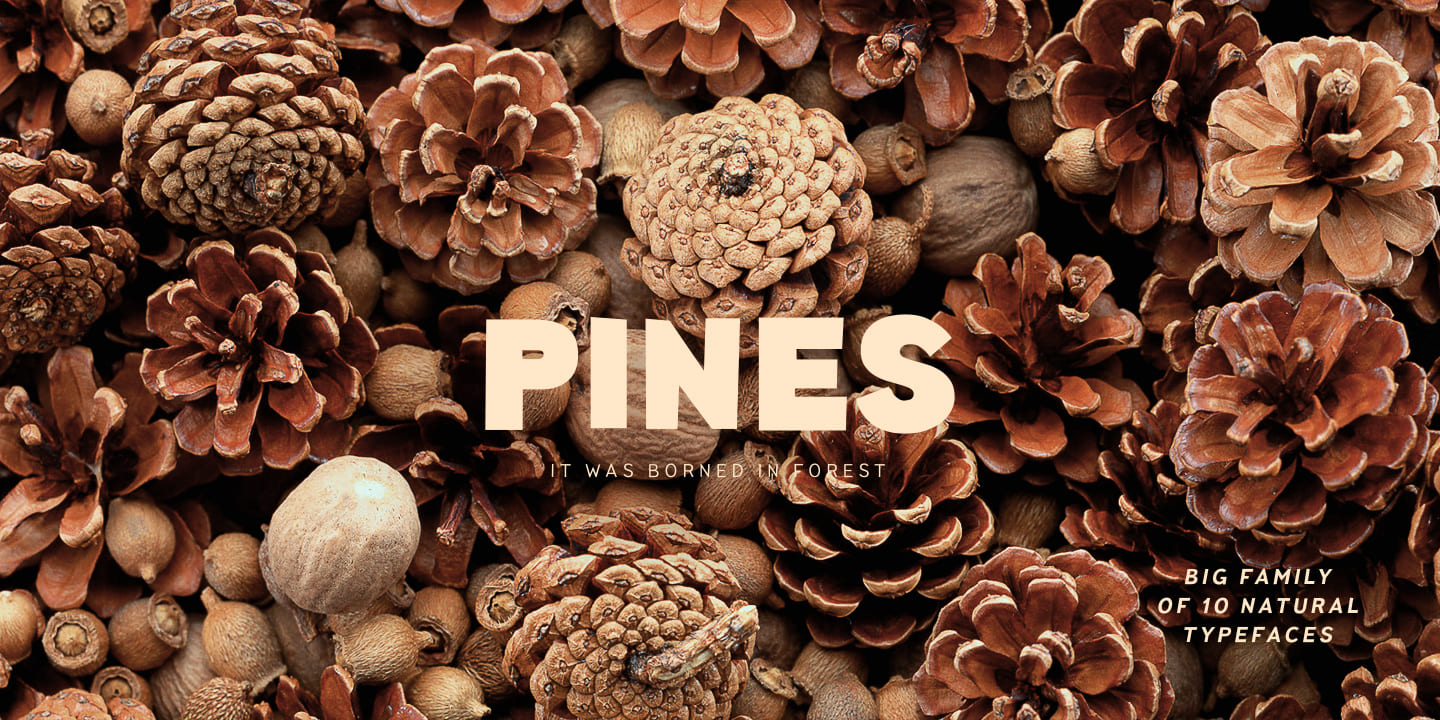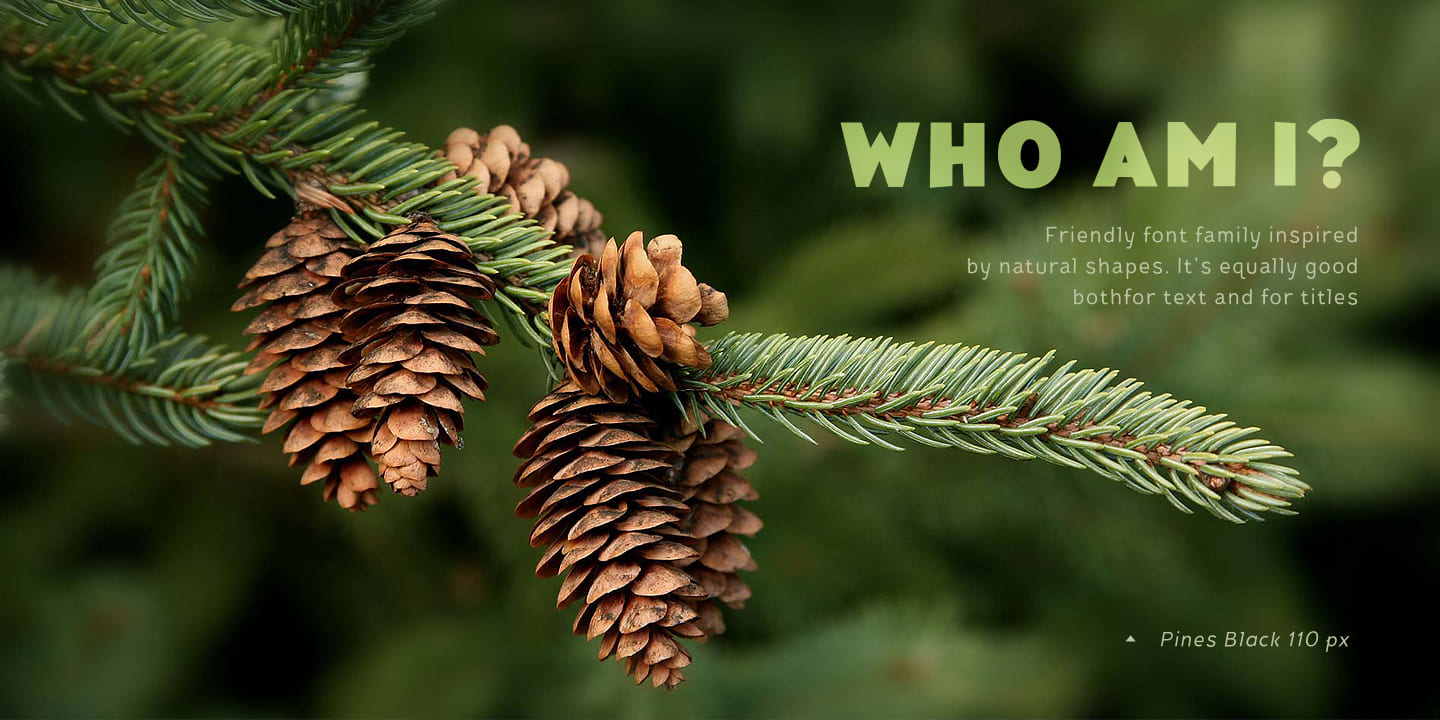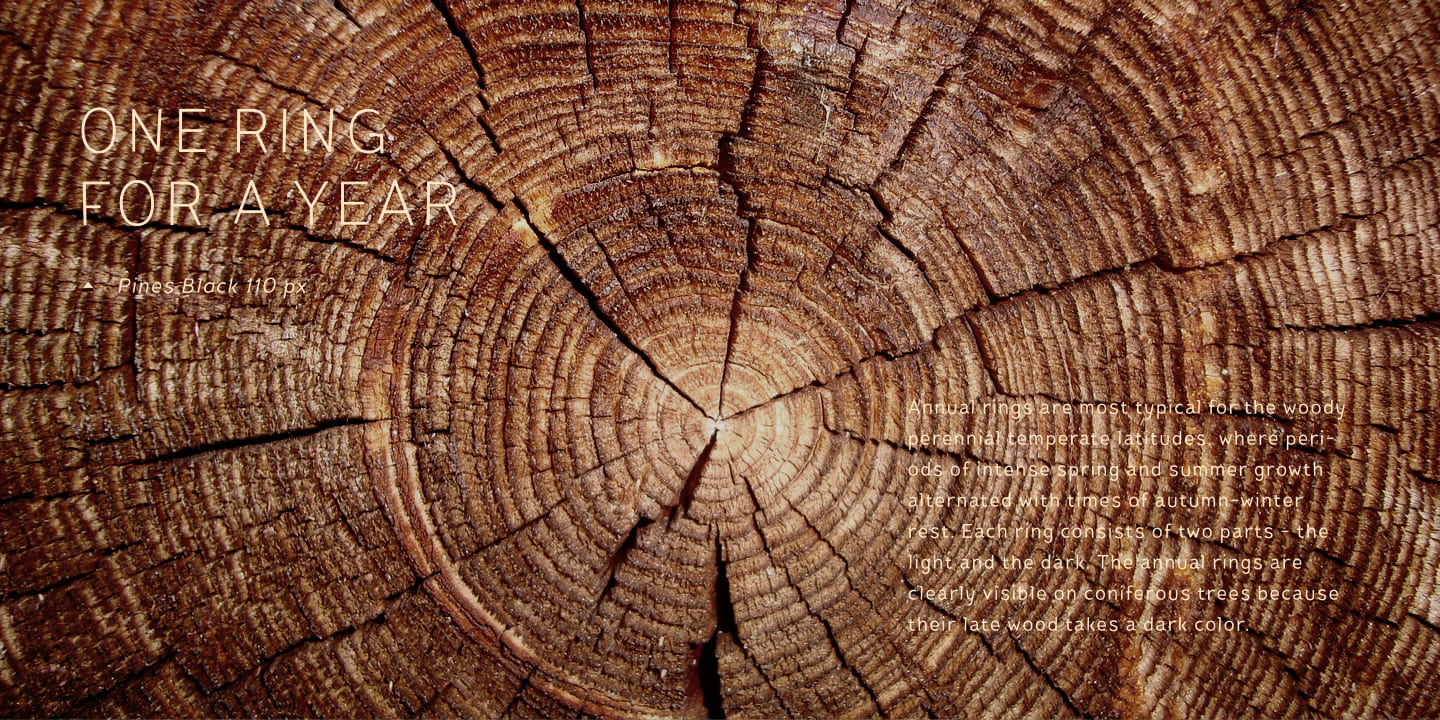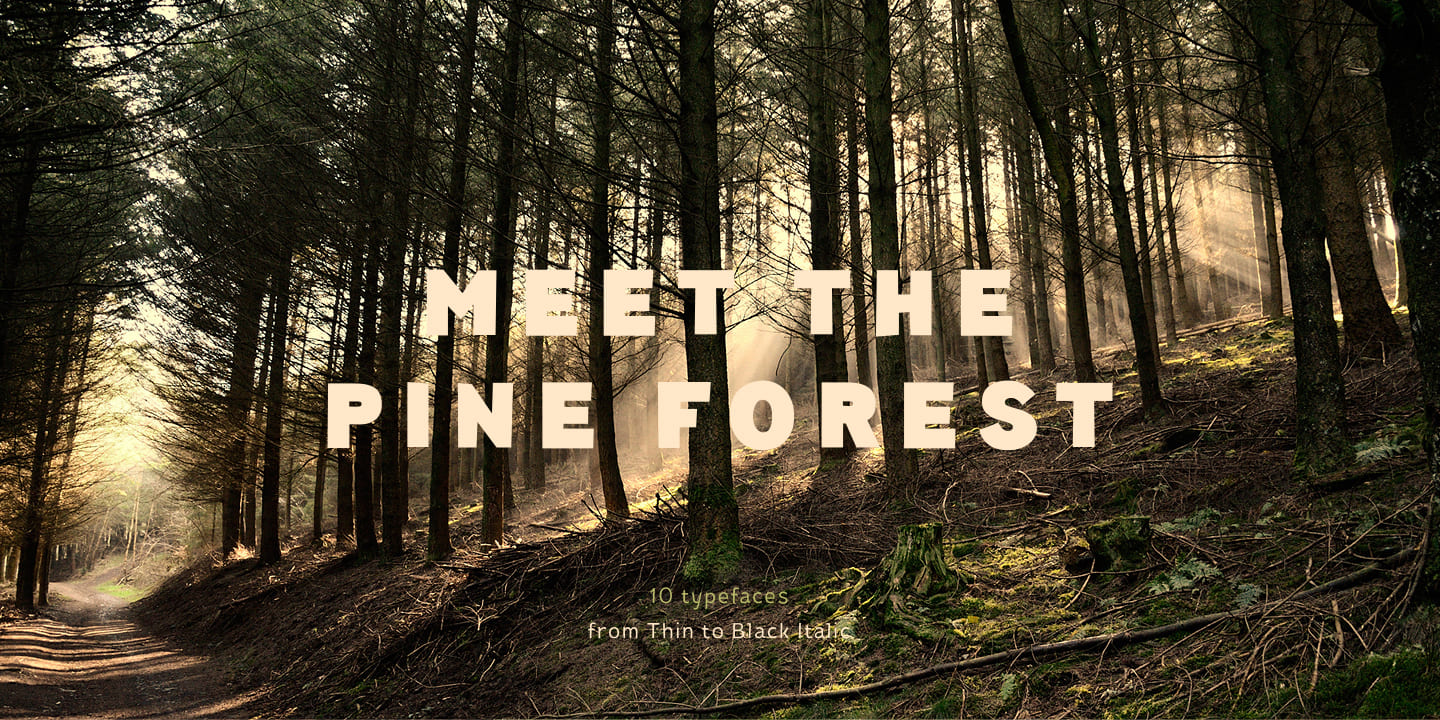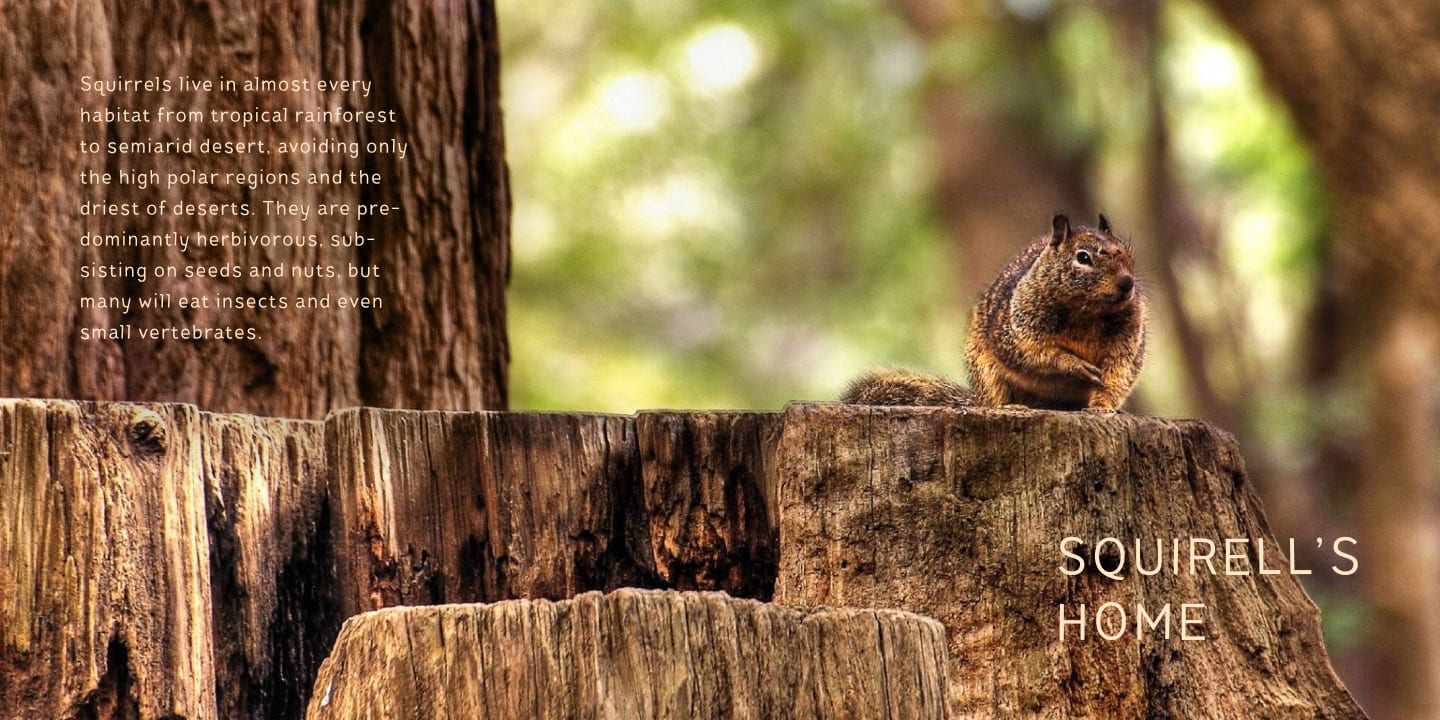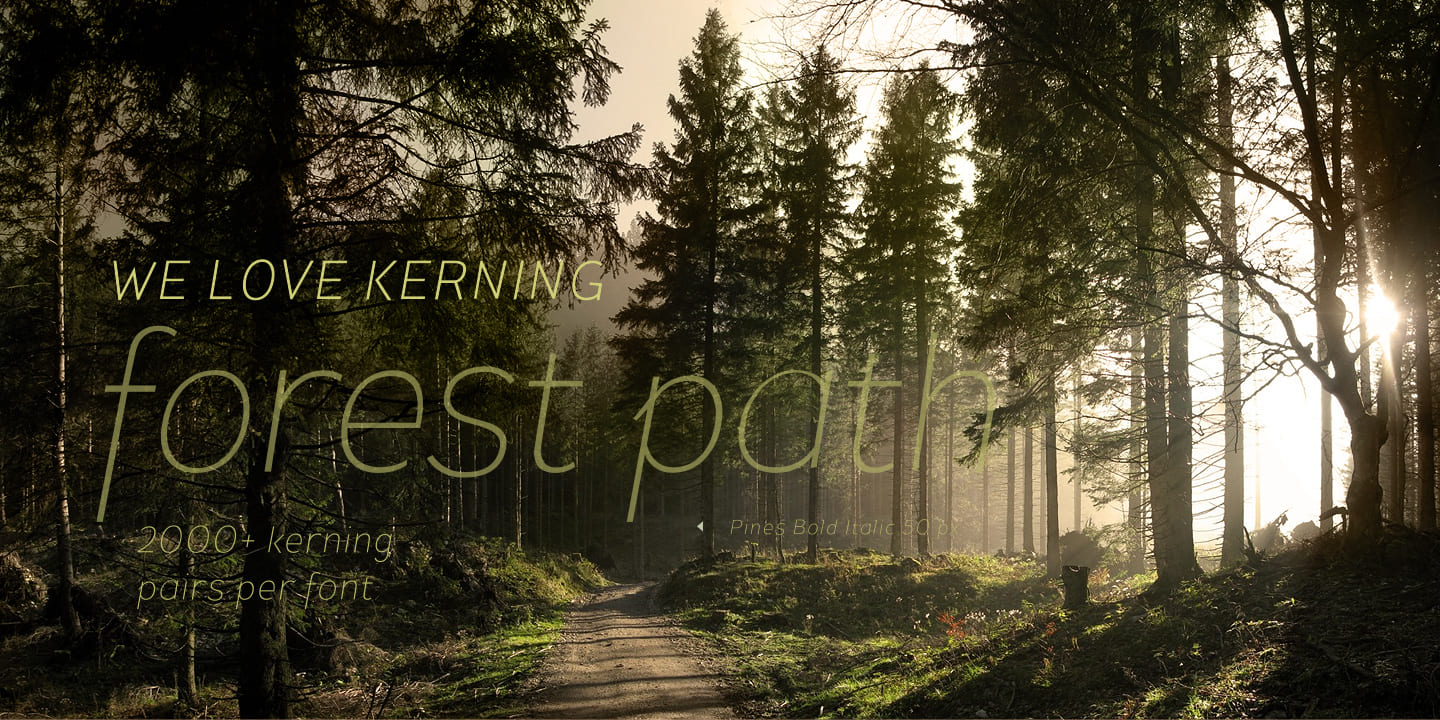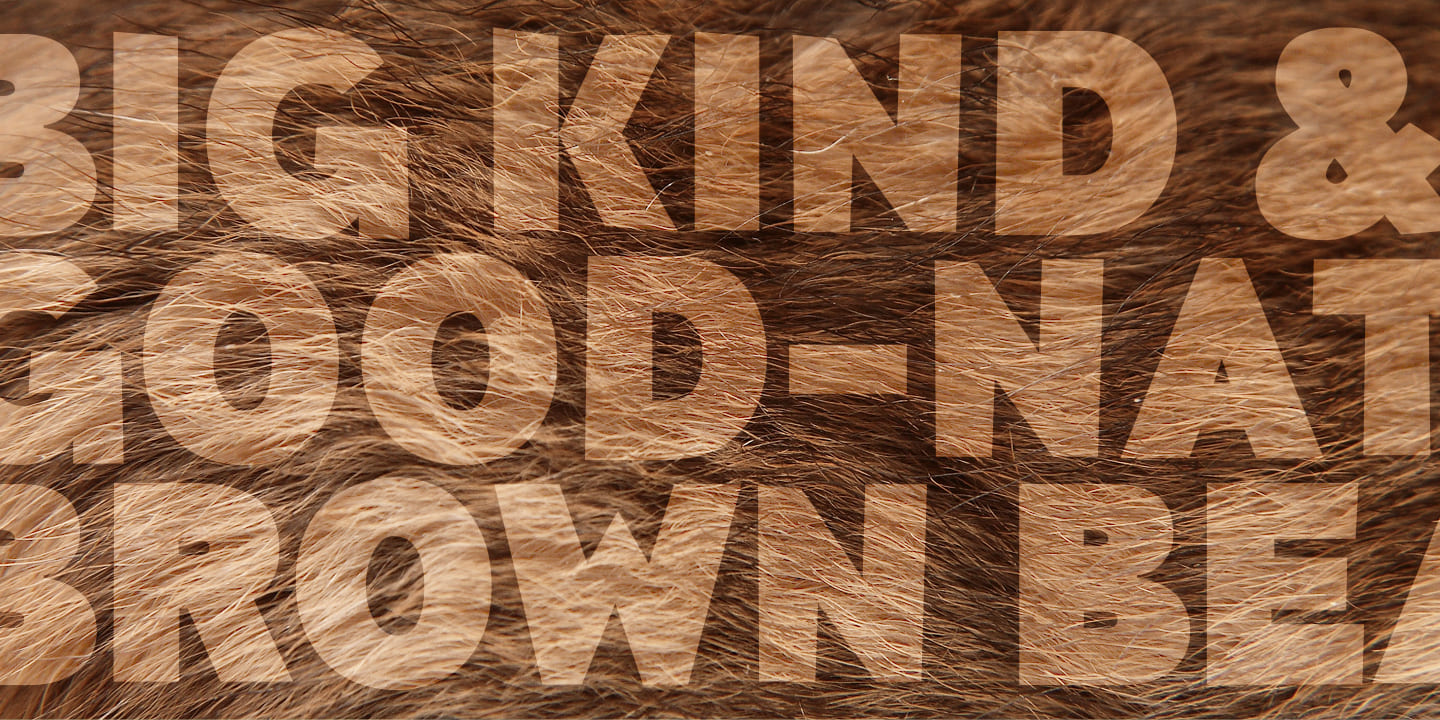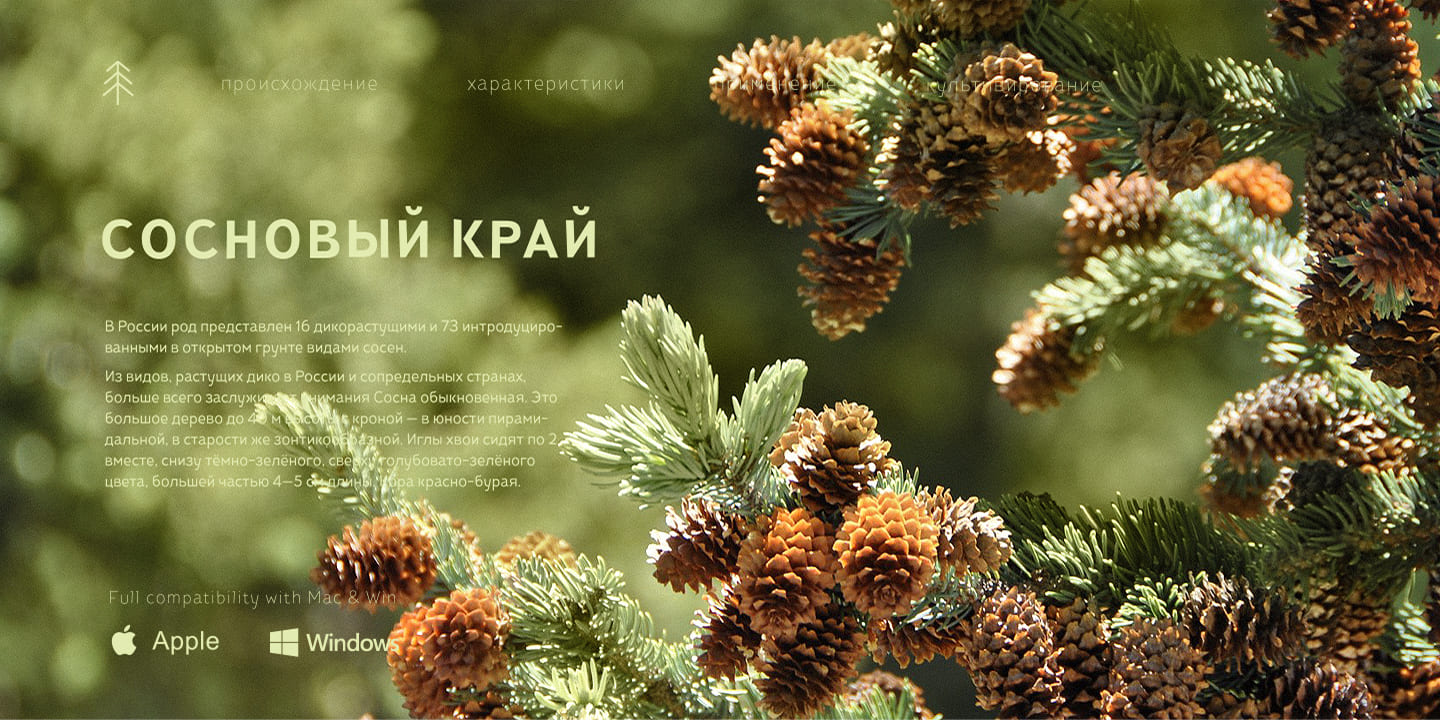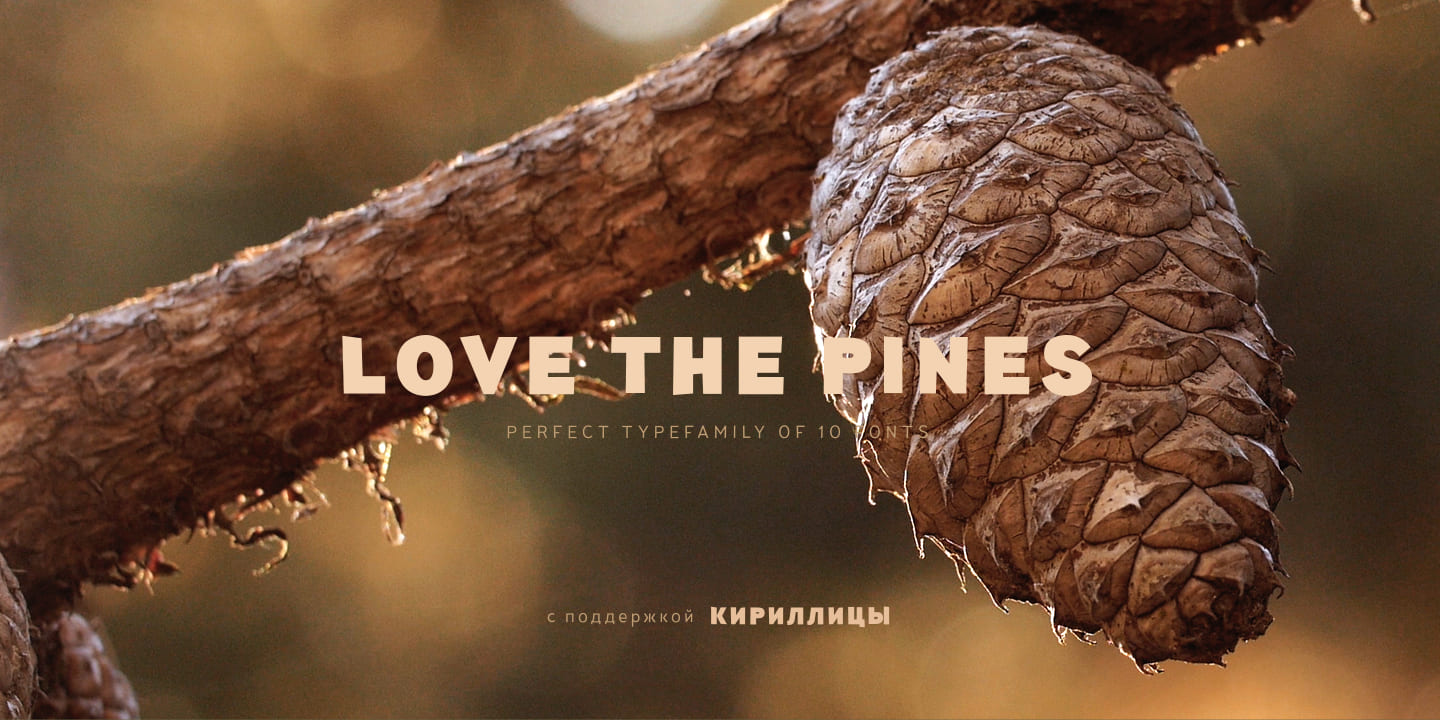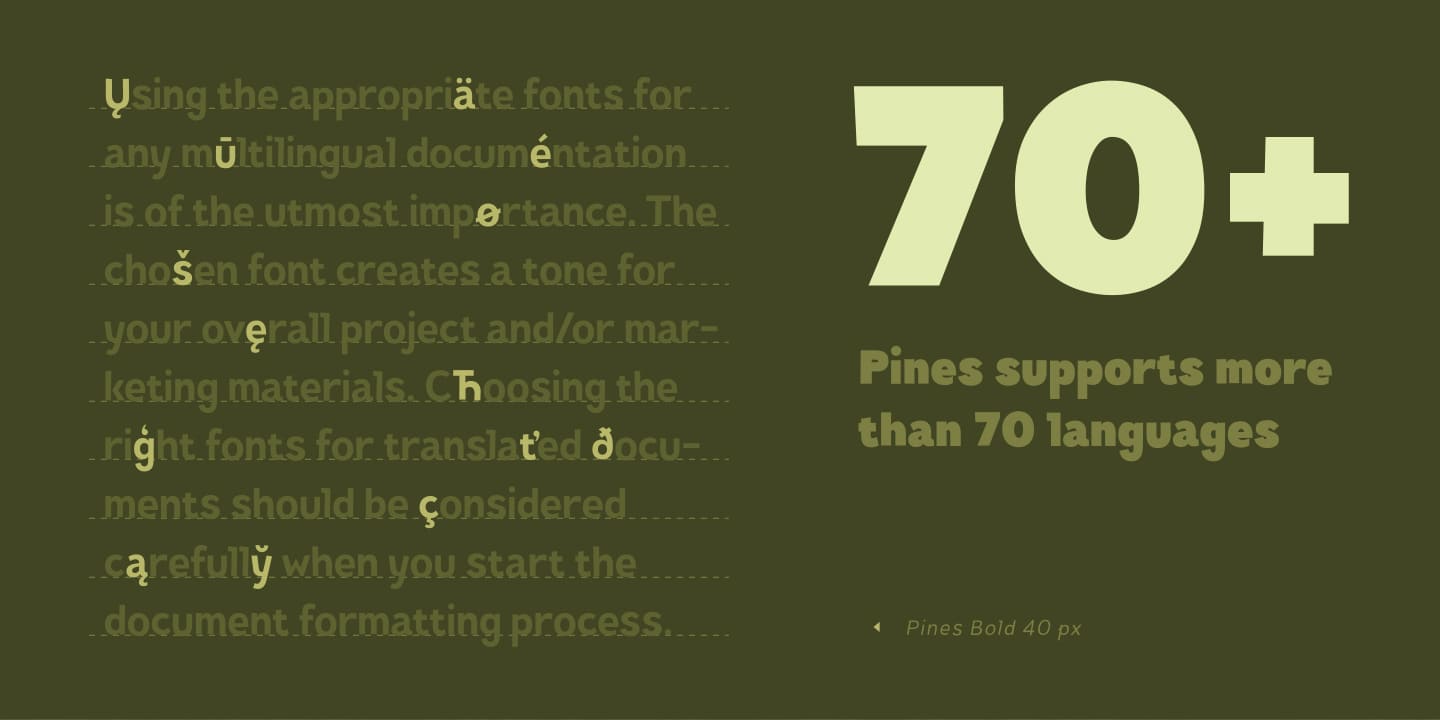
Pines Family (10 fonts)
Now you can create any text layouts and contemporary design with special warmth and friendliness that was inspired by paper. The Pines font amily is great for any ecological design theme. Use if for websites, hand-made items, and eco-friendly products packaging. Our fontfamily is also great for ecological brand identity and navigation.
We've named the font family Pines since it perfectly integrates into the natural environment and looks authentic and harmonious as if it came from the pine forest itself.